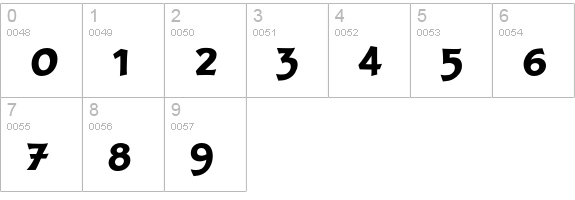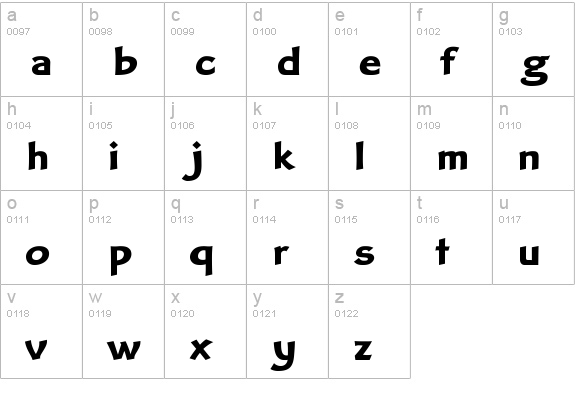
Clair-Black Font Details
Clair-Black is a maximum-weight, dramatic variant in the Clair typeface family \xE2\x80\x94 well suited to maximum-impact headlines, posters, and packaging.
Introducing Clair-Black font, a striking and bold typeface that commands attention with its sleek and modern design. This font exudes a sense of sophistication and professionalism, making it perfect for a wide range of design projects. Featuring clean lines and a solid black weight, Clair-Black font is ideal for creating eye-catching headlines, logos, posters, and more. Its versatility allows it to be used in both print and digital designs, ensuring a polished and stylish look every time. Best of all, Clair-Black font is available for free download at FontsMarket.com. Whether you're a designer looking to enhance your creative projects or a business seeking a distinctive branding solution, this font is sure to make a lasting impression. Don't miss out on the opportunity to add Clair-Black font to your font collection today!